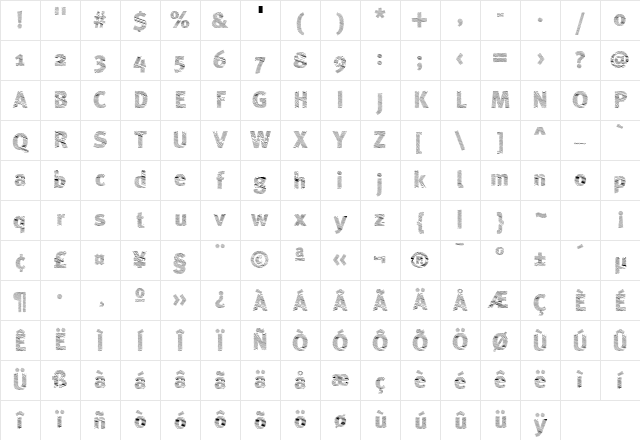
Complete A Bebedera Heavy glyph index. Displaying only characters natively supported by A Bebedera Heavy font.
A Bebedera is a composed and adaptable typeface that performs quietly and consistently across a wide range of design contexts.